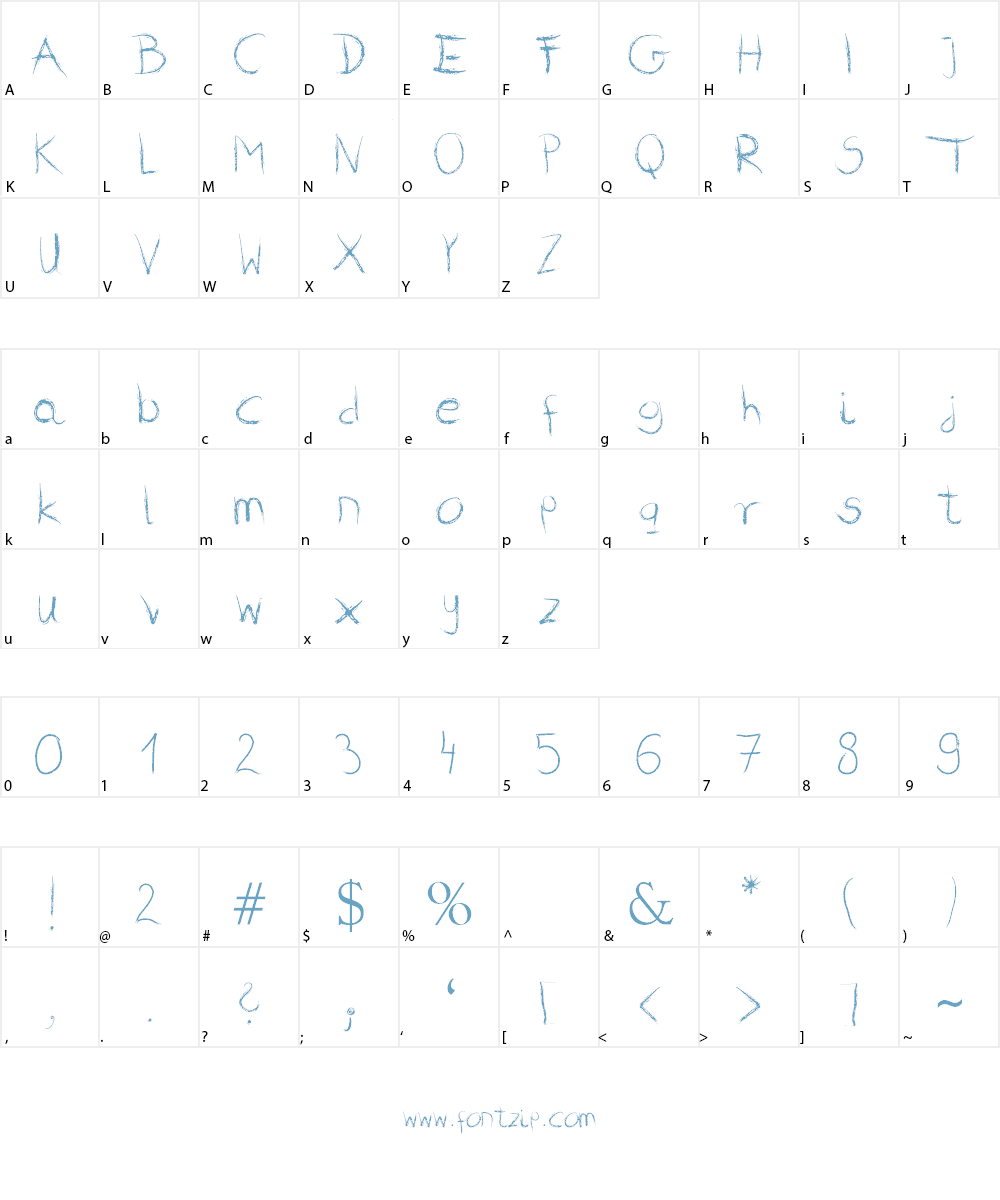
This is real chalkboard font. Include capitals, lower cases, numbers and some signs. Clumsy signs written with chalk. Perfect for any school projects and pages.